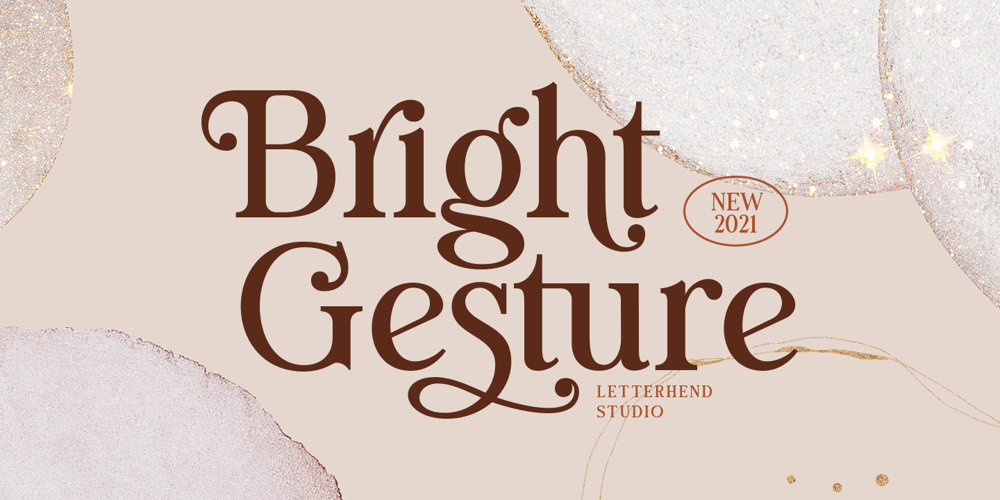
Bright Gesture Font Family was designed by Hendry Juanda and published by Letterhend. Bright Gesture contains 1 styles and family package options. Introducing, Bright Gesture – A Modern serif font with swashes. The stylistic alternates and ligatures make this font event more unique and stands from the crowd. This font perfectly made to be applied especially in logo, and the other various formal forms such as invitations, labels, logos, magazines, books, greeting / wedding cards, packaging, fashion, make up, stationery, novels, labels or any type of advertising purpose.Features : uppercase & lowercase numbers and punctuation multilingual alternates, swashes & ligatures PUA encoded We highly recommend using a program that supports OpenType features and Glyphs panels like many of Adobe apps and Corel Draw, so you can see and access all Glyph variations.